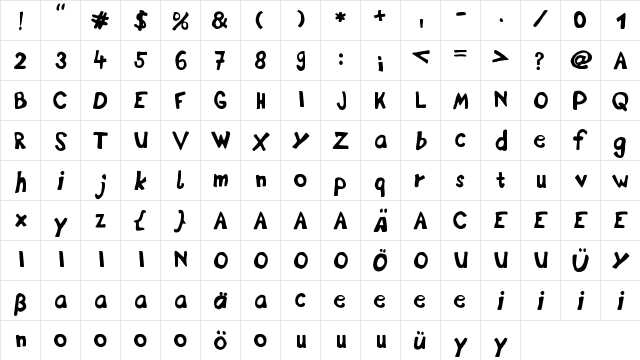
DisplayFadi Regular
Design Context for DisplayFadi Typeface
DisplayFadi is built around its visual character rather than neutral utility — its distinctive forms are designed to make an impression at display sizes.
Font Pairing: Pair with a clean neutral sans-serif for body copy to let DisplayFadi's character lead without overwhelming the composition.
Pro Tip: Use DisplayFadi exclusively at display sizes — it was designed to be seen, not read at length. Let a neutral companion handle body copy.